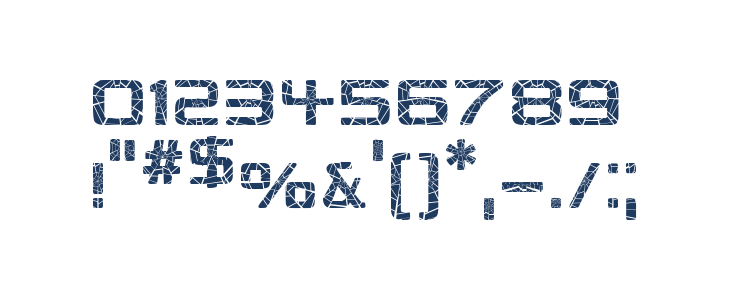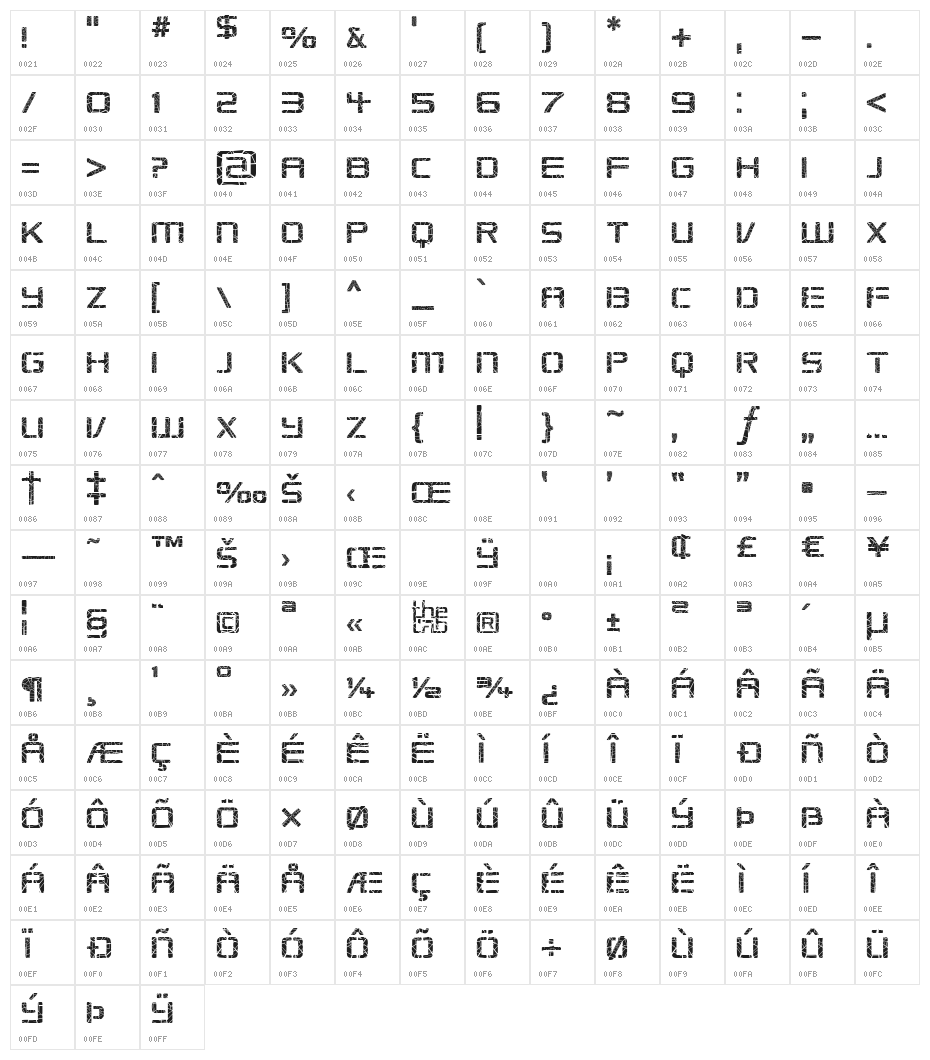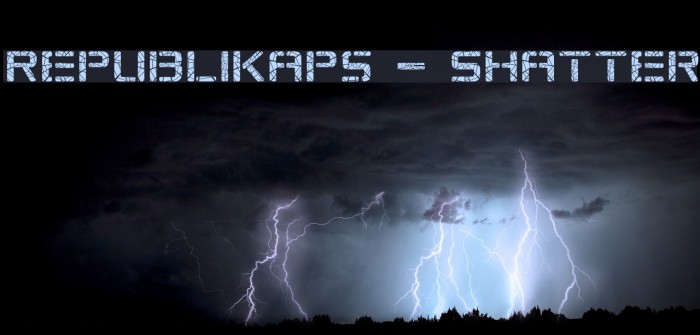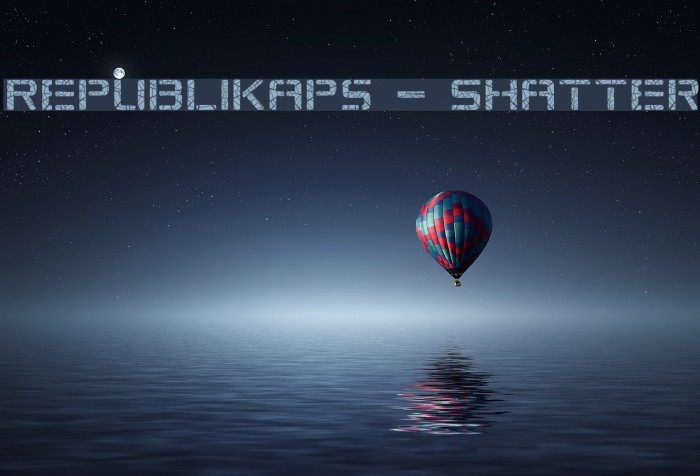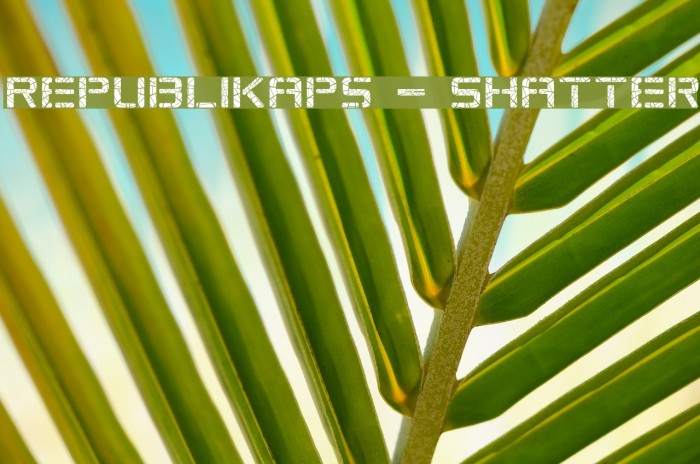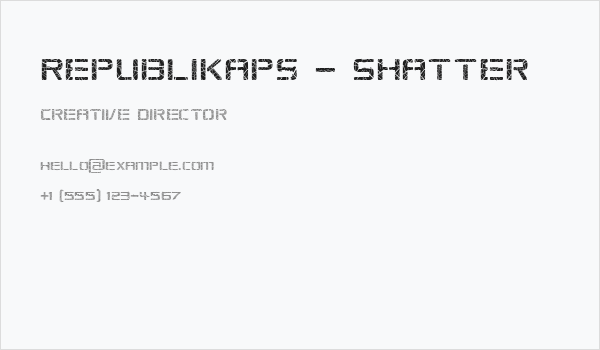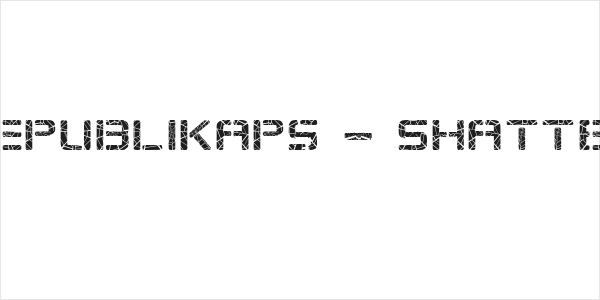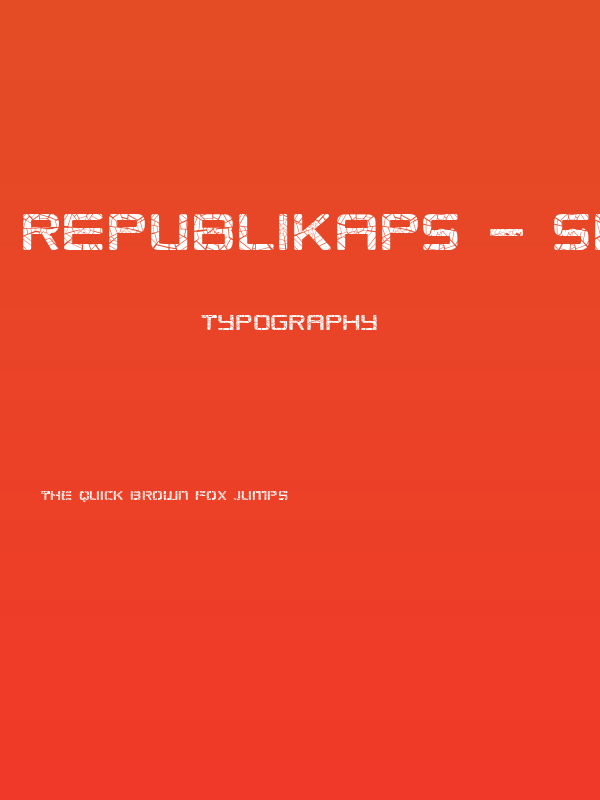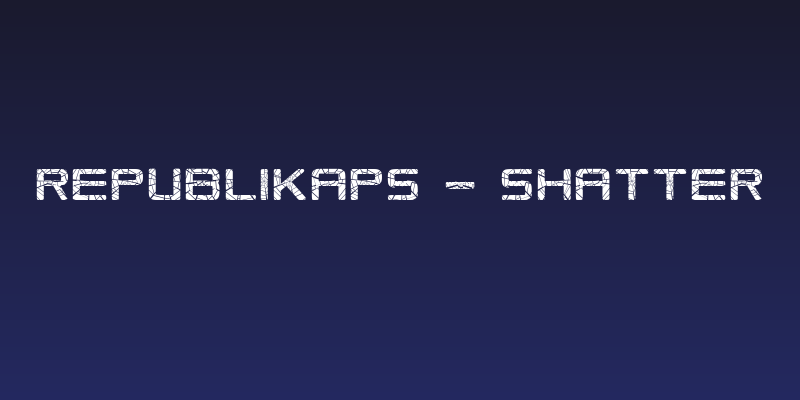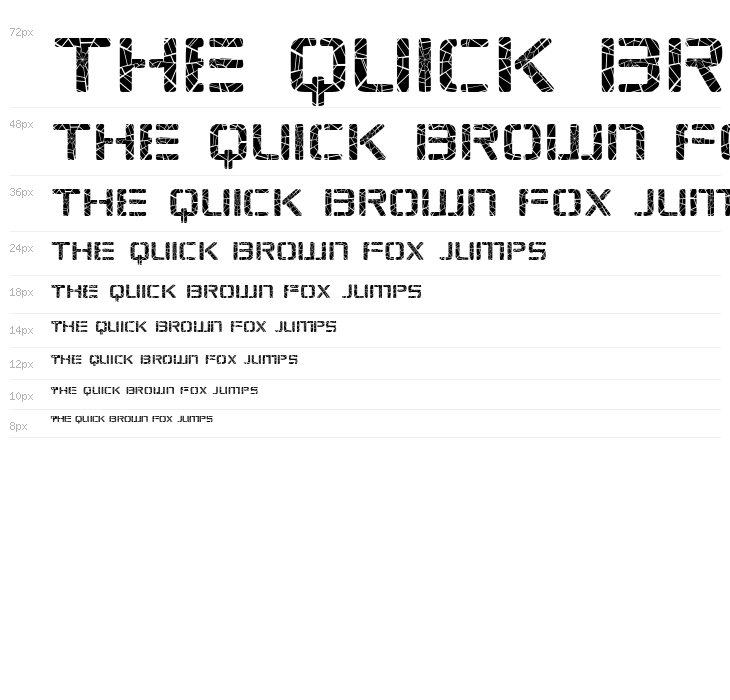
Republikaps - Shatter Font
Republikaps - Shatter Description
This font features a unique shattered glass effect, giving each character a fragmented and dynamic appearance. The uppercase and lowercase letters, along with numbers and special characters, are designed with a consistent pattern of cracks and breaks, creating a visually striking and edgy look. The style is bold and impactful, making it ideal for attention-grabbing designs. The geometric structure of the characters is maintained despite the shattered effect, ensuring readability while adding a layer of artistic flair. This font is perfect for projects that require a modern and unconventional aesthetic.